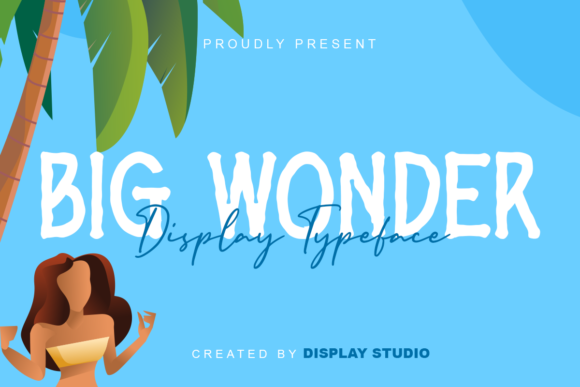
About Big Wonder Font
Big Wonder is a cute and simple lettered handwritten font that can be used for all chalkboard quotes or teaching material! Its authentic look will add a personal and realistic feel to your designs.